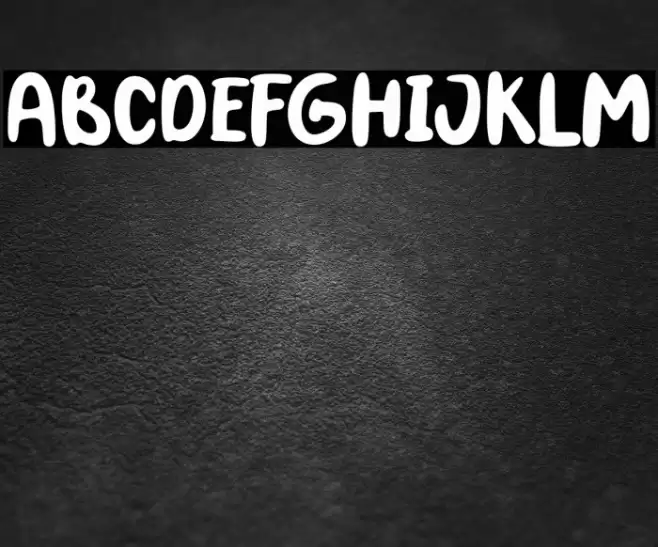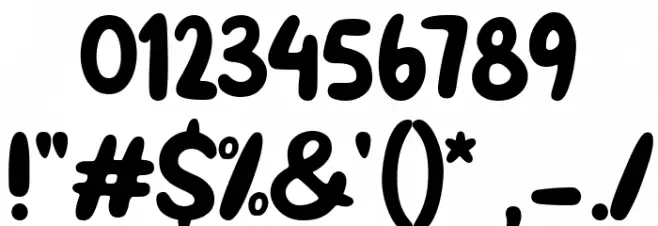
Spooky Cat Font
Spooky Cat Description
This playful and bold font features rounded, thick strokes that give it a friendly and approachable appearance. The letters are slightly irregular, adding a whimsical and hand-drawn feel. The uppercase and lowercase characters maintain a consistent style, with smooth curves and a slightly exaggerated width that enhances readability. The numbers and special characters follow the same design principles, ensuring a cohesive look across all text elements. This font is perfect for projects that require a fun and informal touch, such as children's books, playful branding, or casual invitations.
A bold, playful font with rounded, hand-drawn characters from Comic fonts.
- Font: Spooky Cat
- Proposed Projects: Ideal for children's books, playful branding, casual invitations, and creative posters.
- Width: Expanded
- Overall Style: Playful